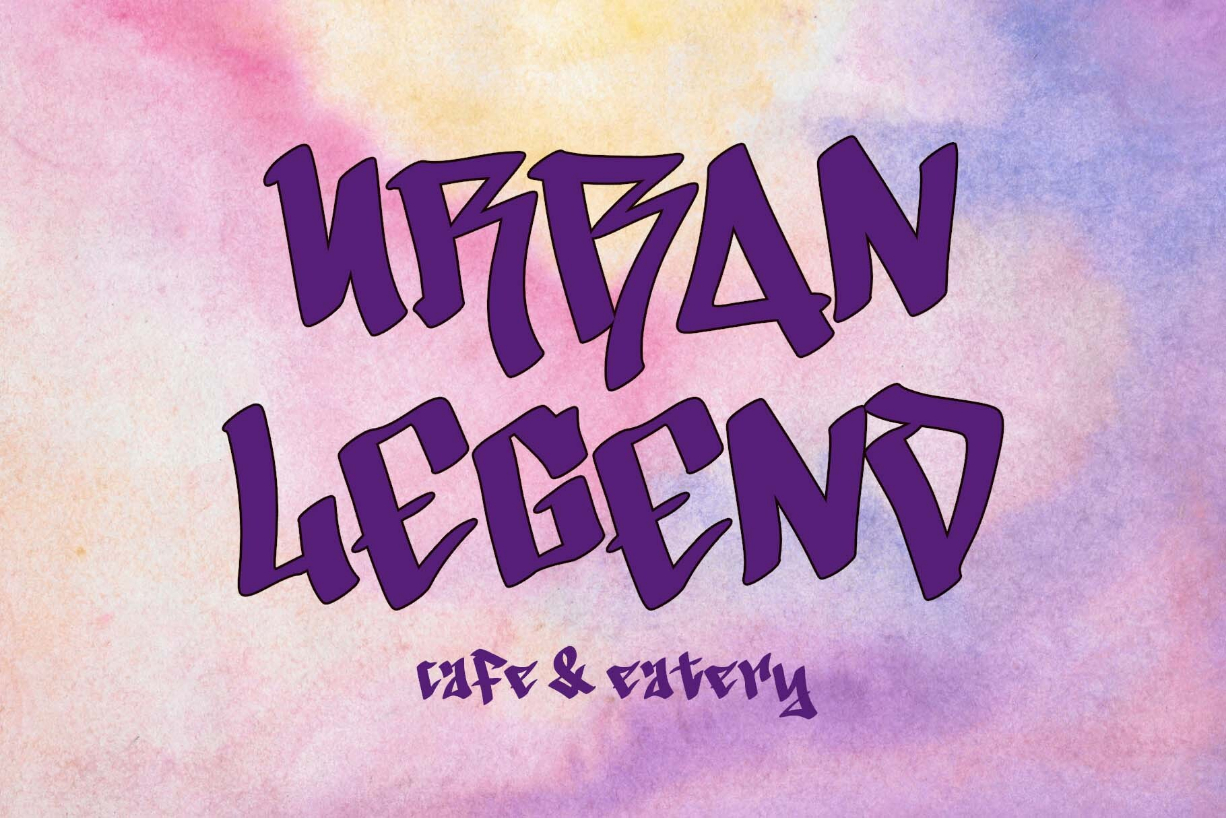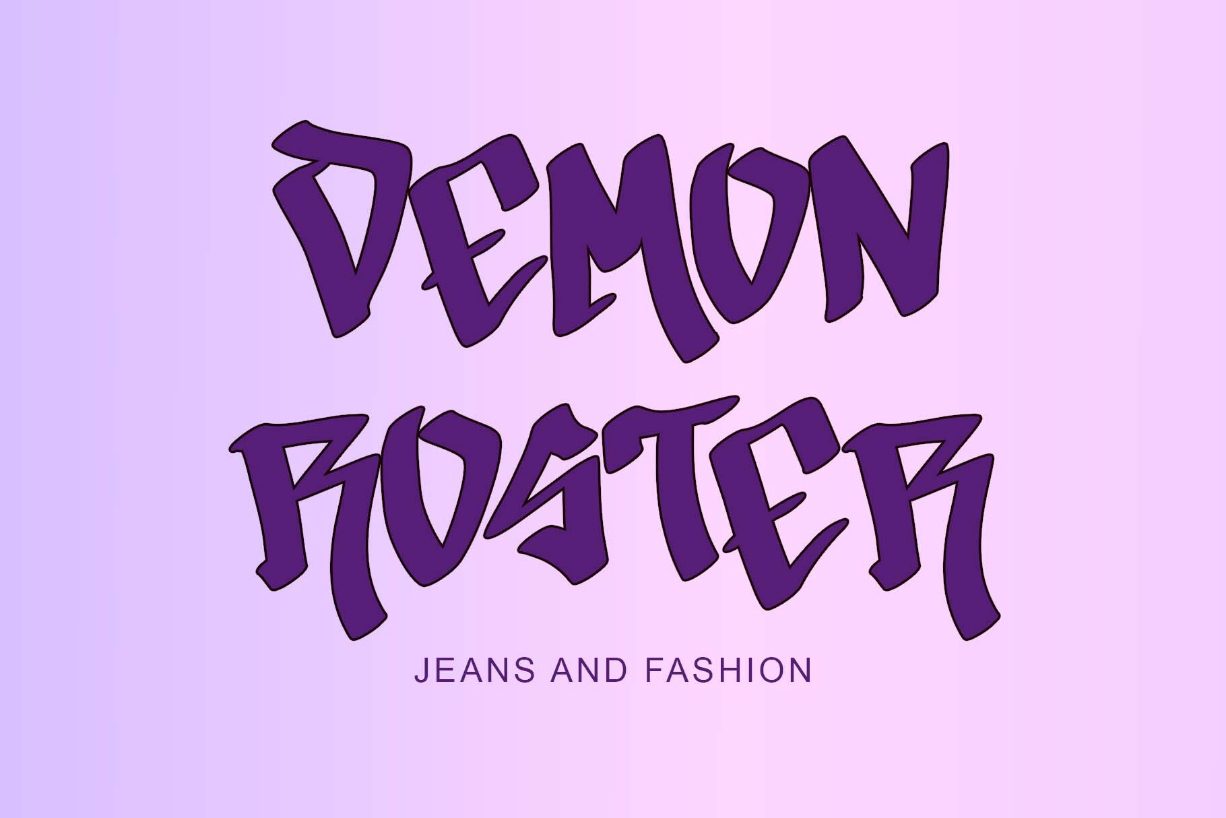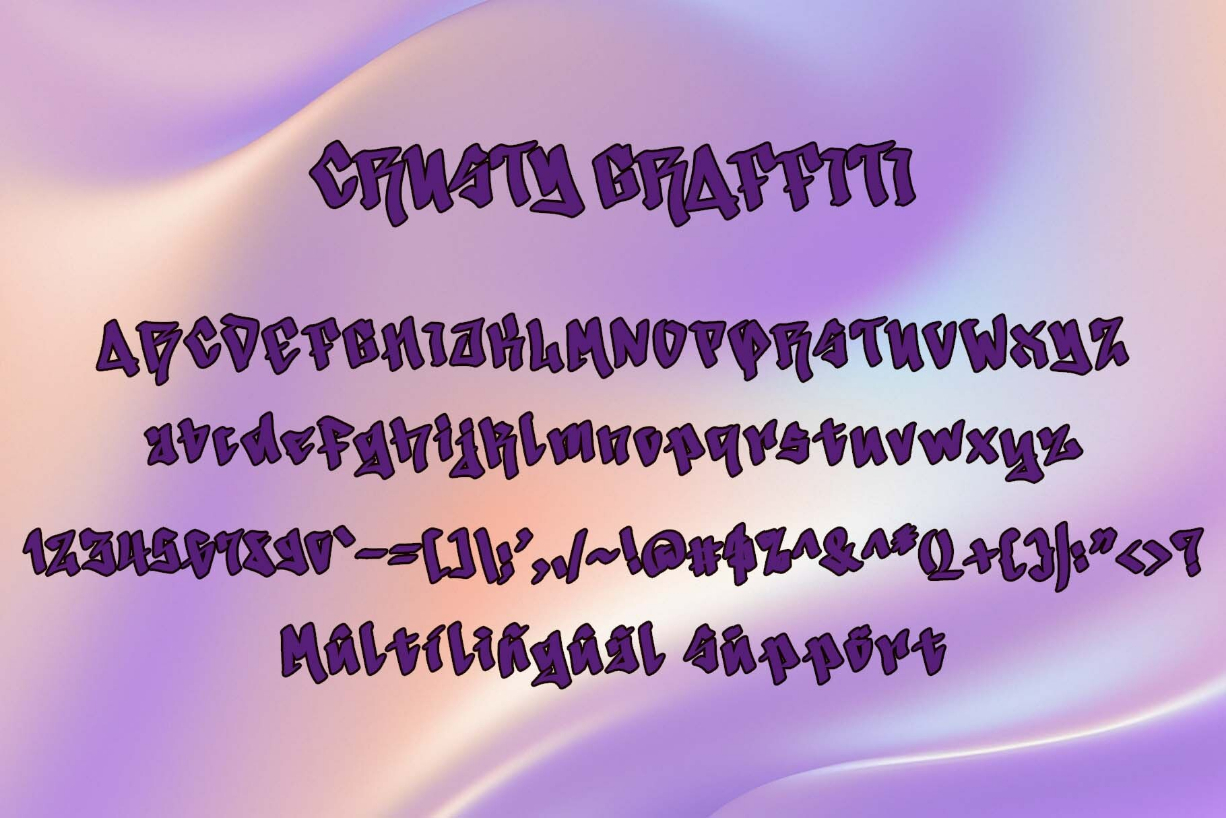
About Crusty Graffiti Font
“Crusty Graffiti” is an elegant graffiti font. This font is equipped with uppercase, lowercase, numerals, punctuation, and multilingual support. Very suitable for street fonts, murals, metal concerts, rock music, business branding, logos, banners, posters, stickers, branding, and others.